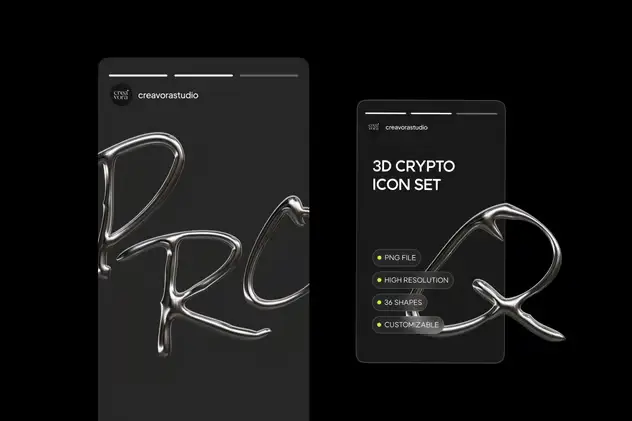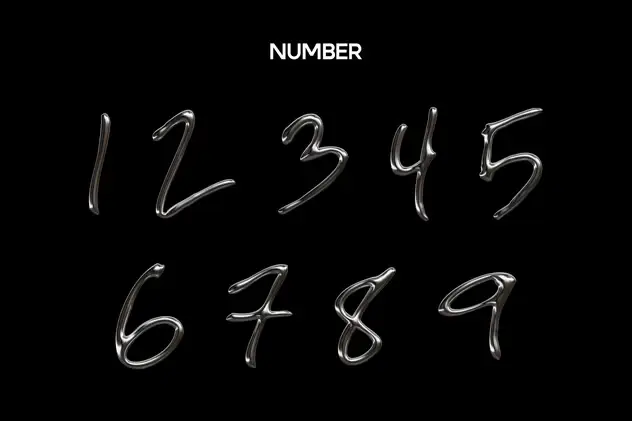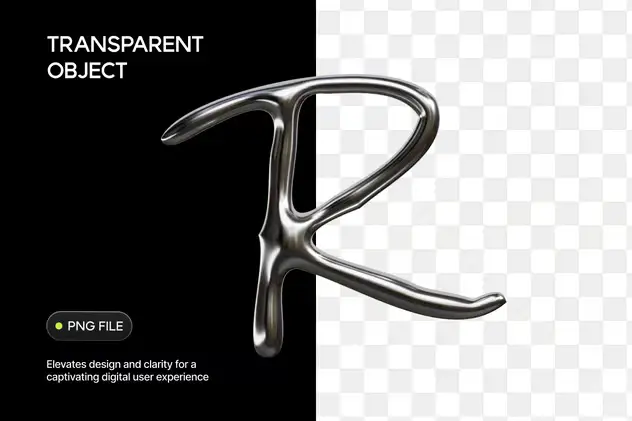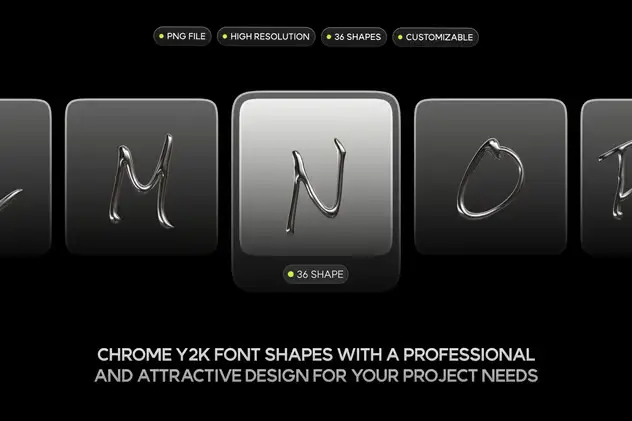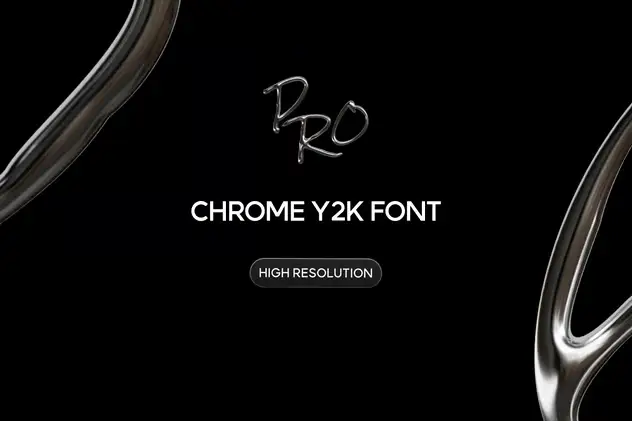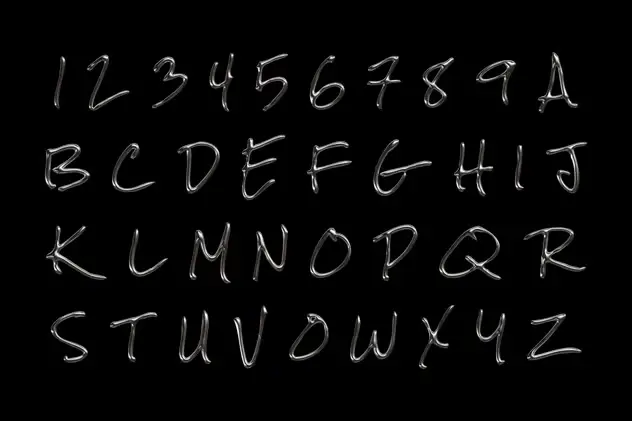
Ignite your creativity with the Chrome Y2K Font! This stunning digital font collection brings a retro aesthetic to your designs, making them pop with a unique chrome finish. Perfect for anyone looking to add a trendy touch to their projects, this font is ready to use and will elevate your design game.
The Chrome Y2K Font is a premium digital font designed for graphic designers, marketers, and creatives who want to make a statement. With its sleek chrome finish and retro vibe, this font is ideal for branding, social media graphics, posters, and more.
- ✅ 36 Unique Elements → Create eye-catching designs with a variety of styles.
- ✅ Perfect for Multiple Applications → Ideal for branding, logos, icons, and social media content.
The Chrome Y2K Font stands out with its exclusive design and versatility. Unlike other fonts, it combines a nostalgic retro feel with modern aesthetics, making it a trusted choice for designers who want to stay ahead of trends. Plus, the high-quality PNG files ensure that your designs look professional and polished.